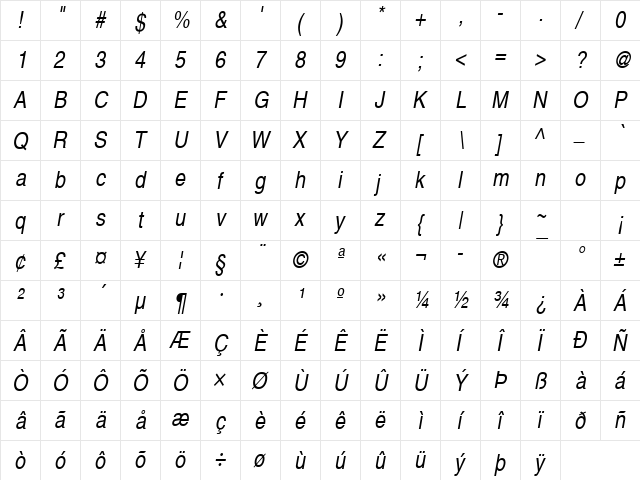
Nimbus Sans Becker LCon Italic
Design Context for Nimbus Sans Becker LCon Typeface
Nimbus Sans Becker LCon takes a measured approach to typography — its balanced proportions and neutral character make it a reliable workhorse for both digital and print work. Its italic angle brings a sense of urgency and motion to the letterforms.
Pro Tip: Try Nimbus Sans Becker LCon for annotation and caption copy alongside an upright companion — the contrast in angle creates a dynamic but ordered typographic system.